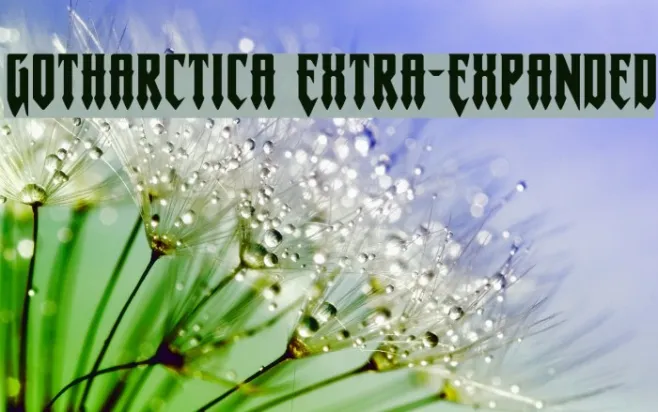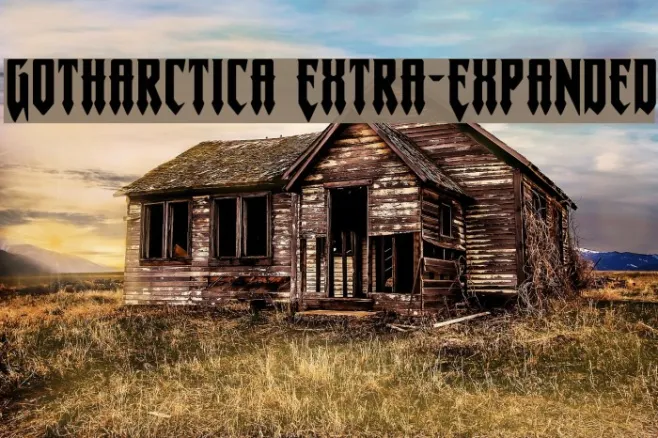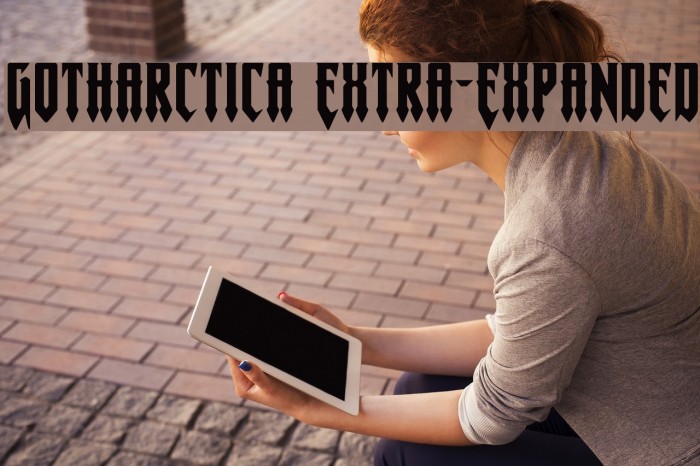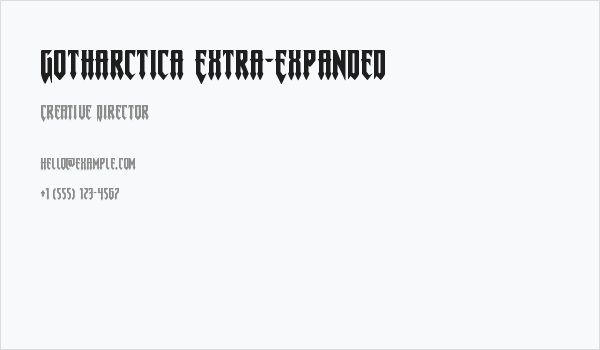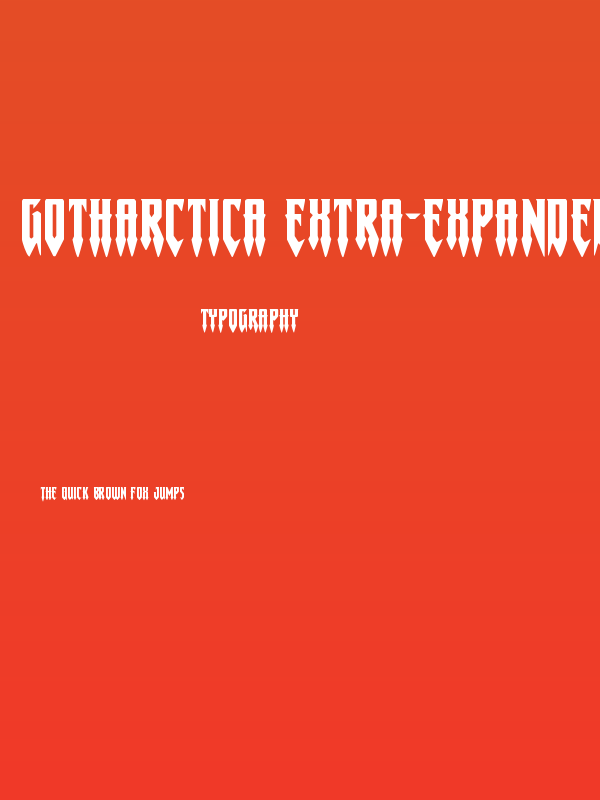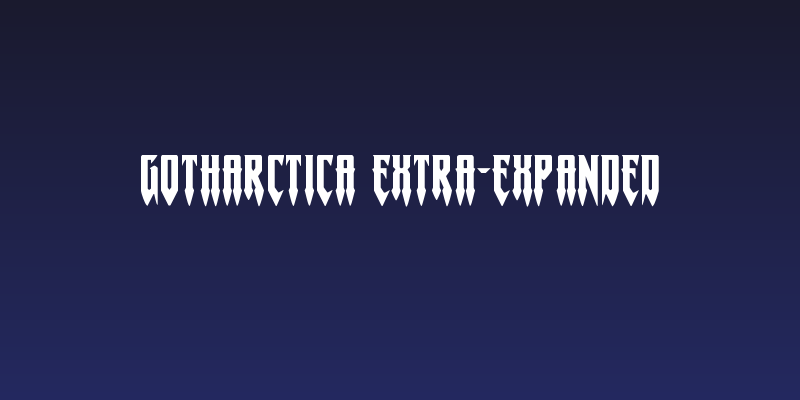
Gotharctica Extra-Expanded Font
Gotharctica Extra-Expanded Description
This font features a bold and striking design with an extra-expanded width, giving it a commanding presence. The characters are sharply angular, reminiscent of Gothic architecture, with pointed serifs and a strong vertical emphasis. The uppercase letters are particularly imposing, while the lowercase letters maintain the same stylistic elements, ensuring consistency across the typeface. The numerals and special characters follow the same design principles, making them equally bold and eye-catching. This font is ideal for projects that require a dramatic and impactful visual statement.
| Overall Style | Gothic, Decorative |
| Proposed Projects | Ideal for posters, album covers, branding for edgy or alternative products, and any design needing a bold statement. |